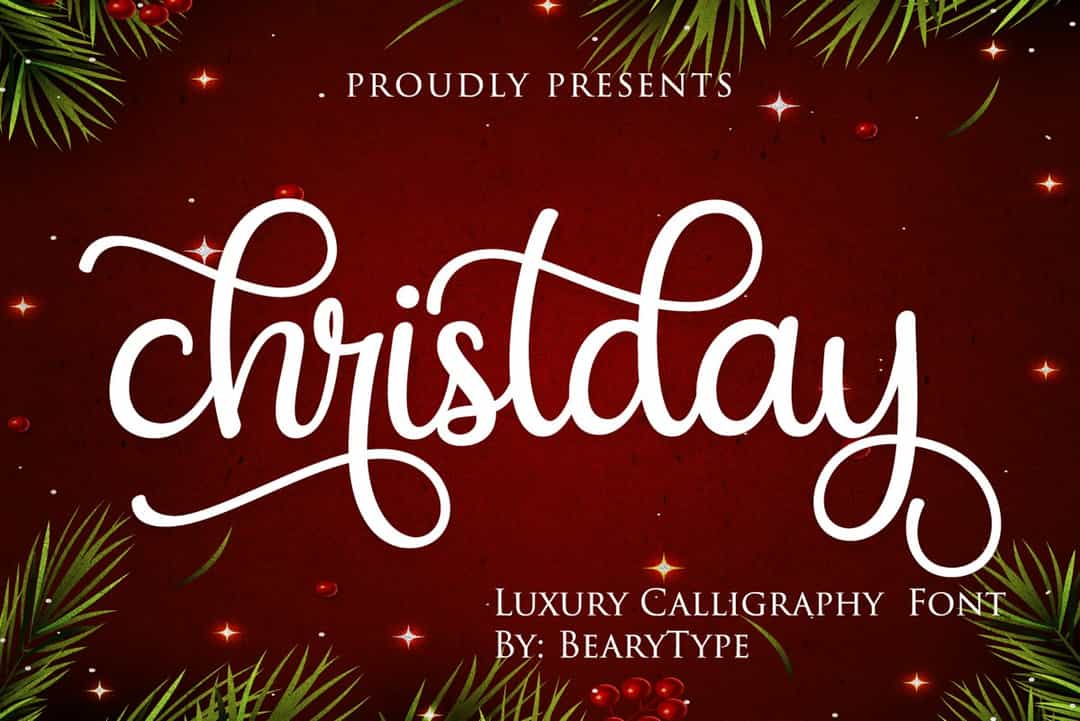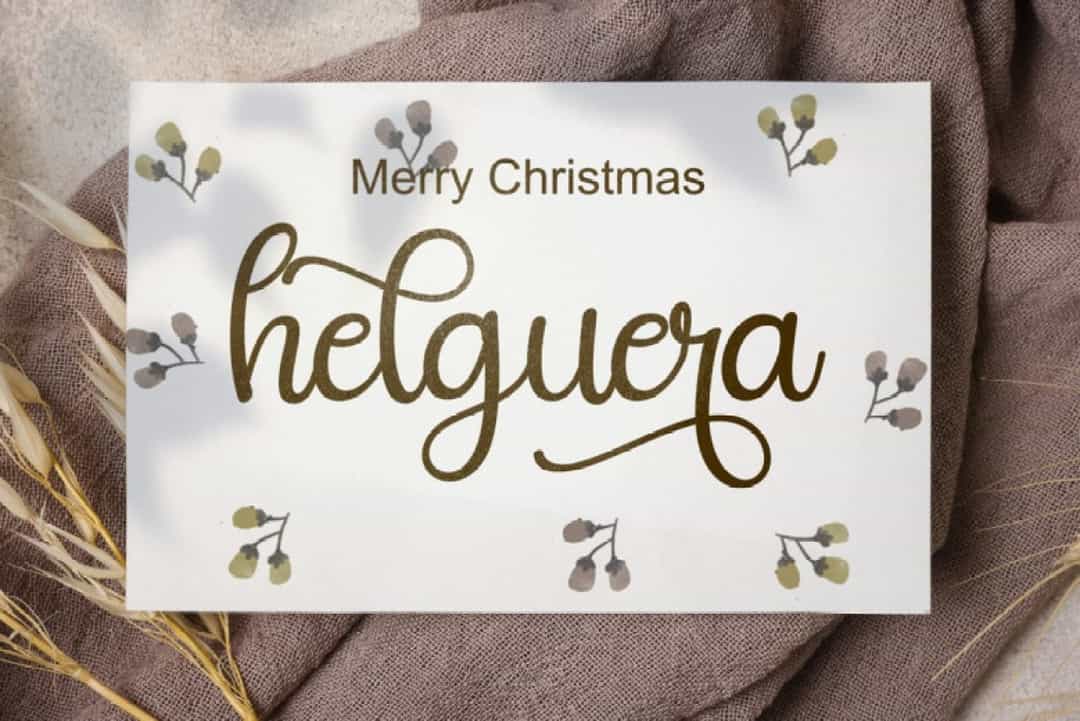
It is so much fun to look at the elegant handwriting of Christday Font! Every letter was chosen with care to guarantee that your text looks beautiful and elegant. This font has 298 glyphs with 99 alternates with swashes and more than 60 additional Latin characters for other languages besides English.